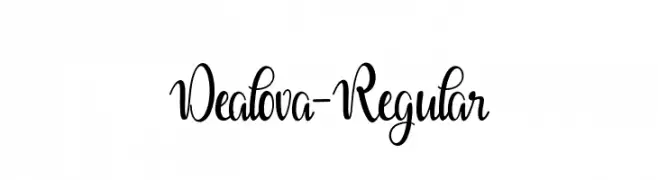
An elegant script font with flowing, cursive letters and intricate swashes.
An elegant script font with intricate swashes and decorative flourishes.
A playful, handwritten font with a friendly and approachable style.
An elegant script font with flowing curves and decorative flourishes.
An elegant, flowing script font with ornate uppercase and consistent lowercase letters.
An elegant script font with flowing cursive letters and intricate swashes.
A dynamic, handwritten-style font with slanted, energetic letterforms.
A bold, handwritten font with a dynamic and energetic style.
A bold, italic, and handwritten-style font with a dynamic and expressive appearance.
A bold, italicized handwritten font with a dynamic and energetic style.